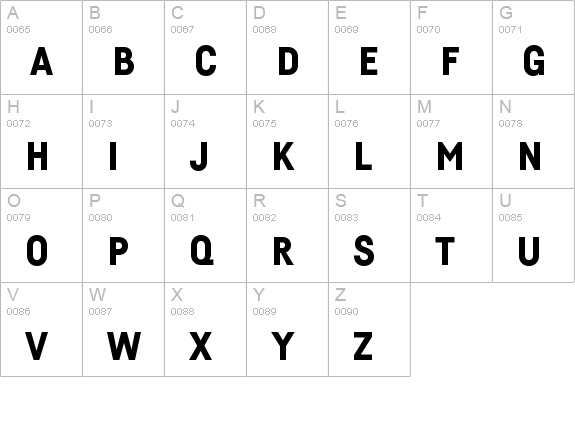
Fabrikat Black is a maximum-weight, dramatic variant in the Fabrikat typeface family \xE2\x80\x94 well suited to maximum-impact headlines, posters, and packaging.
Fabrikat Black is a modern and sleek typeface that exudes sophistication and elegance. Its bold and distinctive letterforms make it perfect for creating eye-catching headlines and statements. The sharp, clean lines of Fabrikat Black give a sense of strength and professionalism to any design project. What sets Fabrikat Black apart is not only its striking aesthetics but also its versatility. Whether used in print or digital media, this font commands attention and leaves a lasting impression. And the best part? Fabrikat Black is available for free download at FontsMarket.com. So, designers and creatives alike can easily access this exquisite font and elevate their projects with its powerful presence. Don't miss out on the opportunity to add Fabrikat Black to your font collection today!